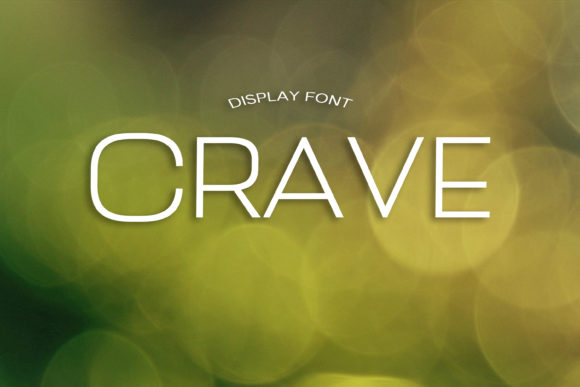
Introducing Crave, the Display Font that Ignites Imagination and Leaves a Lasting Impression. This extraordinary creation of dmytroyarish takes typography to new horizons, propelling your designs to unprecedented levels of originality and impact. Unleash your creativity and let Crave's captivating aura enchant your audience.
With its sleek and futuristic lines, Crave commands attention, injecting boundless personality into your projects. Its meticulously crafted curves and angles exude an irresistible charm, leaving your designs with an undeniable 'wow' factor. Embrace Crave's versatility and witness how seamlessly it blends with any design element, effortlessly accentuating your words and captivating your audience.
Indulge in the endless possibilities that await you with Crave. Whether you're crafting captivating social media posts, crafting eye-catching web designs, or igniting life into print advertisements, Crave stands ready to leave an unforgettable impression. Let Crave's allure ignite your imagination and propel your creations to unprecedented
heights. Embrace the extraordinary and let Crave be your beacon of creativity.